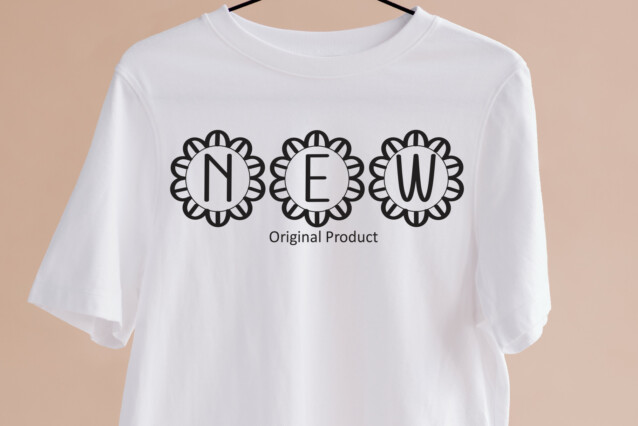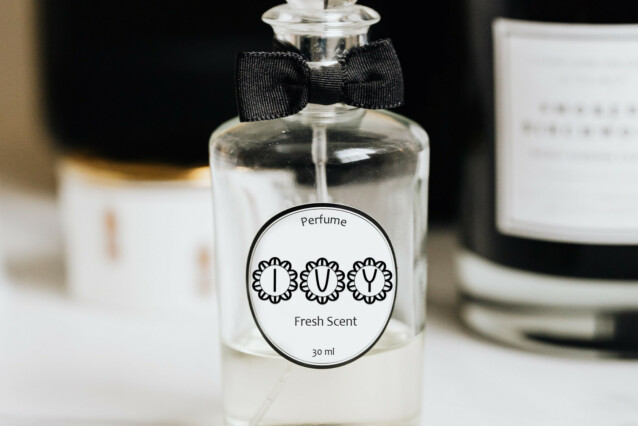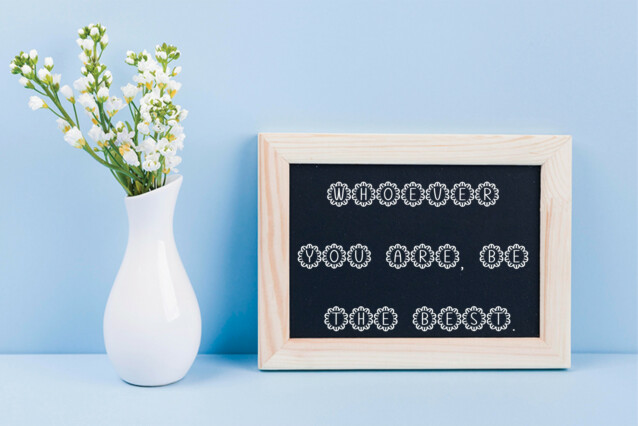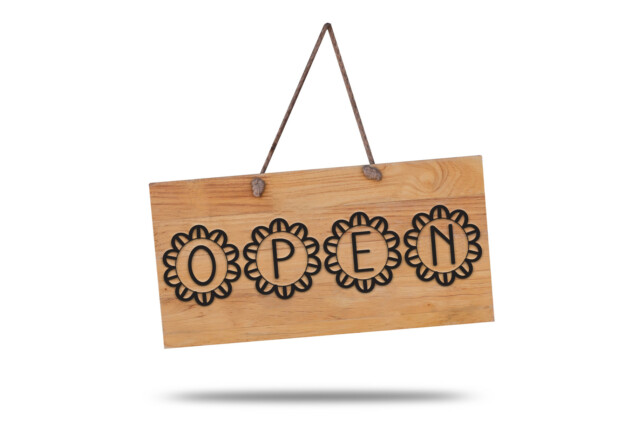
Royal Mirror Font
Royal Mirror Font is a sweet and friendly handwritten display font. Cute and fun, this font is ideal for writing wedding invitations, cards, or any other design that might need a playful touch!